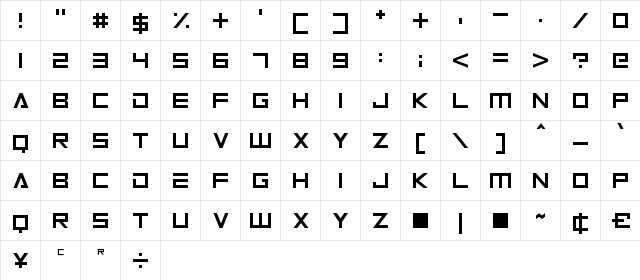
Android 101 Regular Font Preview
Android 101 Regular
Android 101 Regular Font Details
| Foundry | High-Logic / Made with FontCreator |
| Designer | Darrell Flood |
Design Context for Android 101 Typeface
Android 101 offers clean, dependable letterforms without strong stylistic allegiance, making it a practical choice for designers who need flexibility.